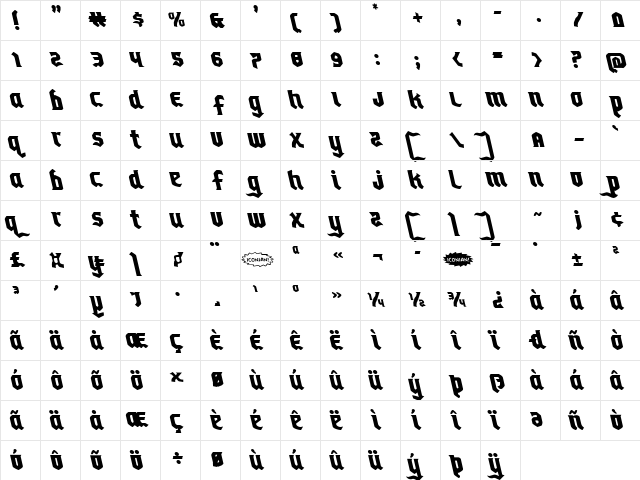
Empire Crown Leftalic Italic
Design Context for Empire Crown Leftalic Typeface
Empire Crown Leftalic is a composed and adaptable typeface that performs quietly and consistently across a wide range of design contexts. The slanted form adds forward momentum and visual energy.
Pro Tip: Use Empire Crown Leftalic for emphasis, pull quotes, and subheadings where its slanted energy can add rhythm to the layout.